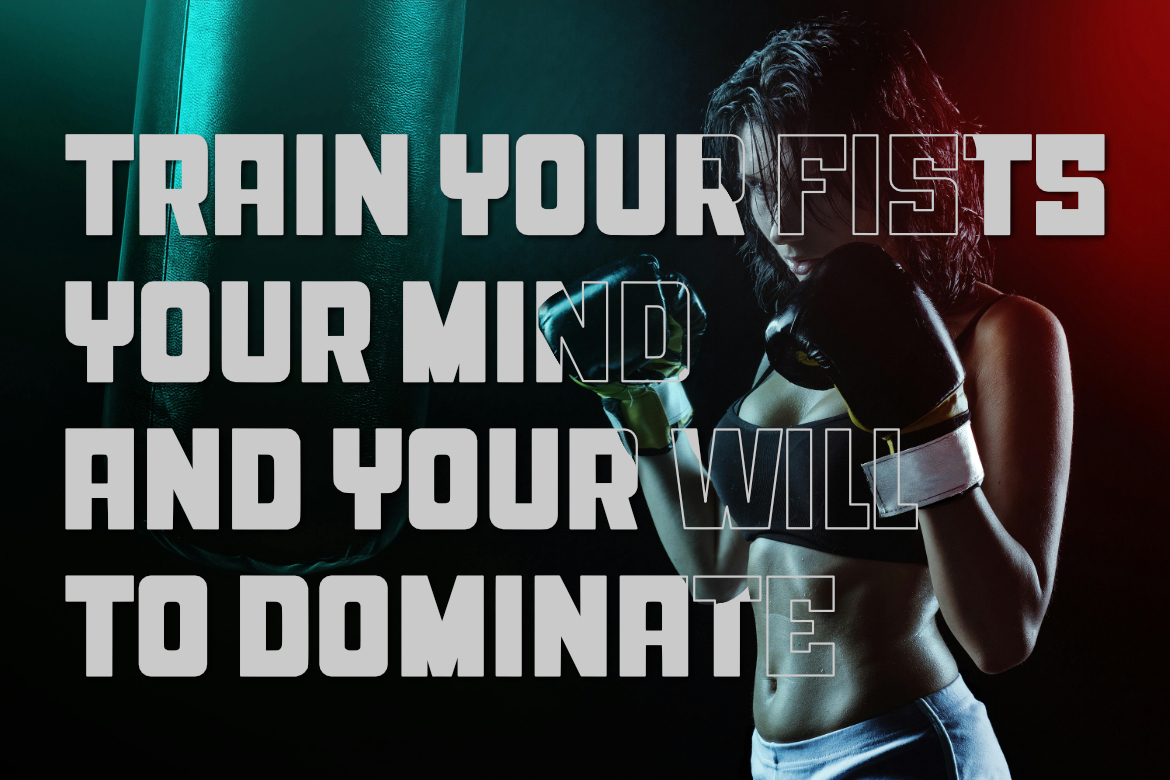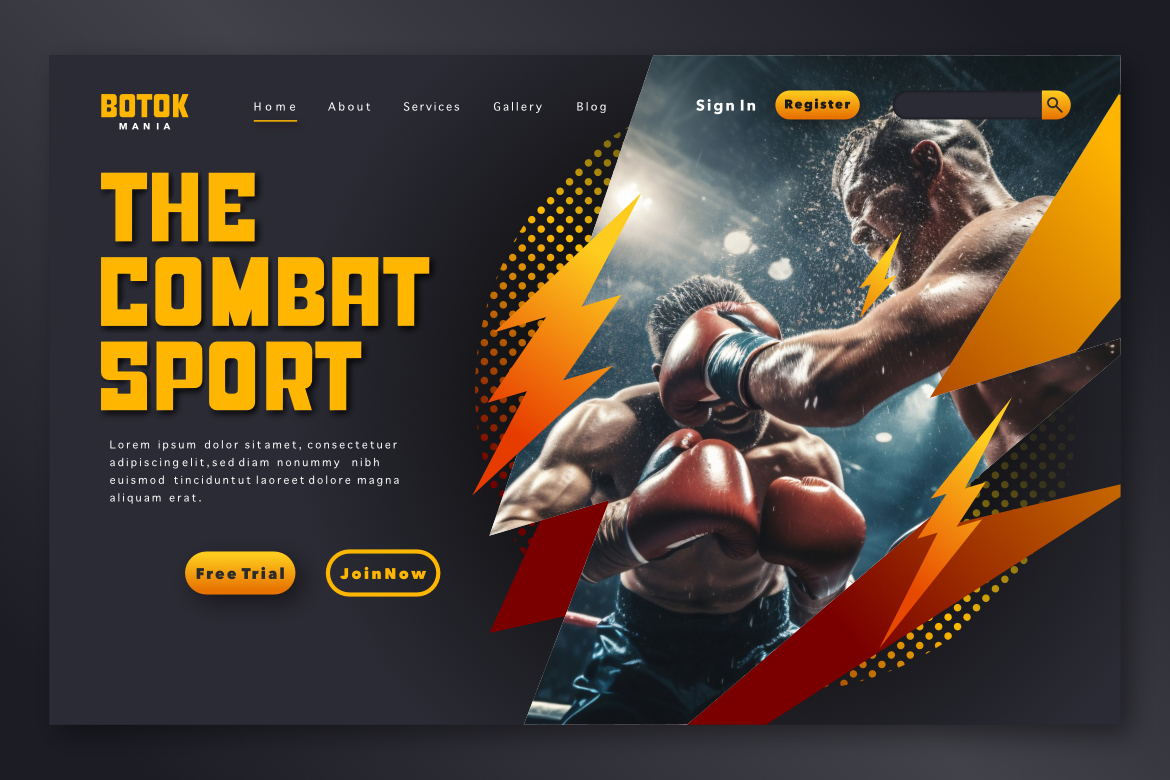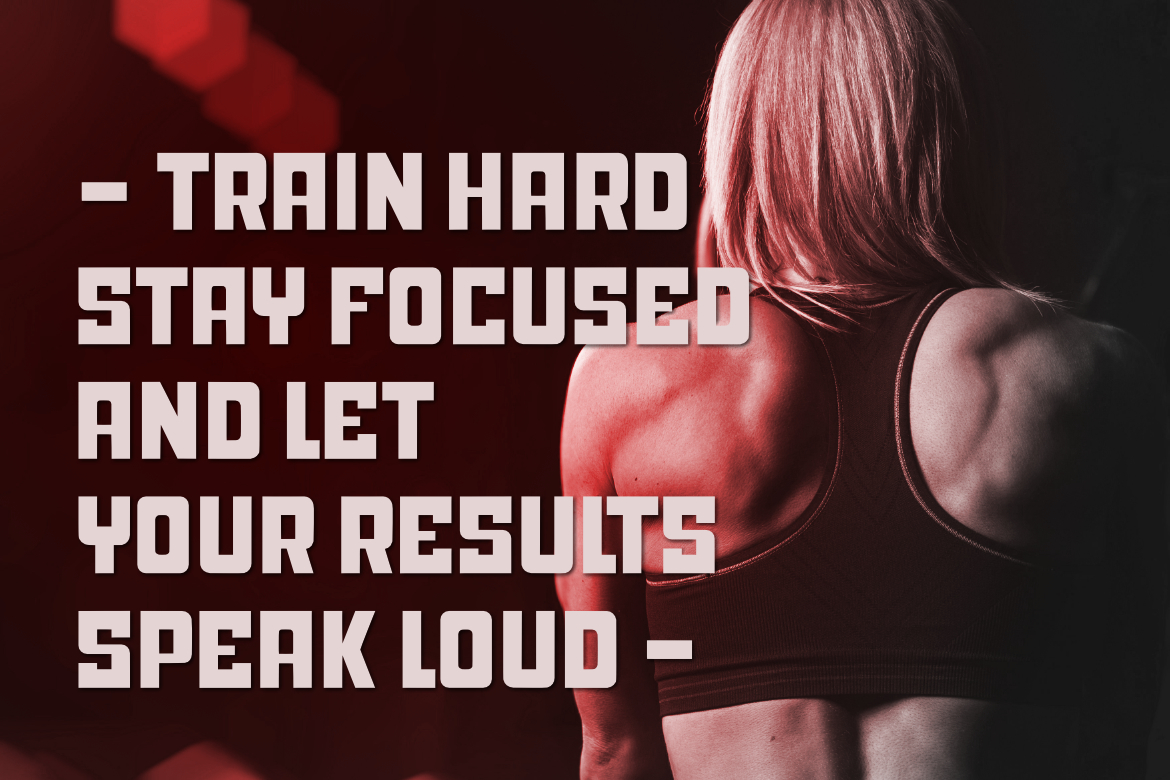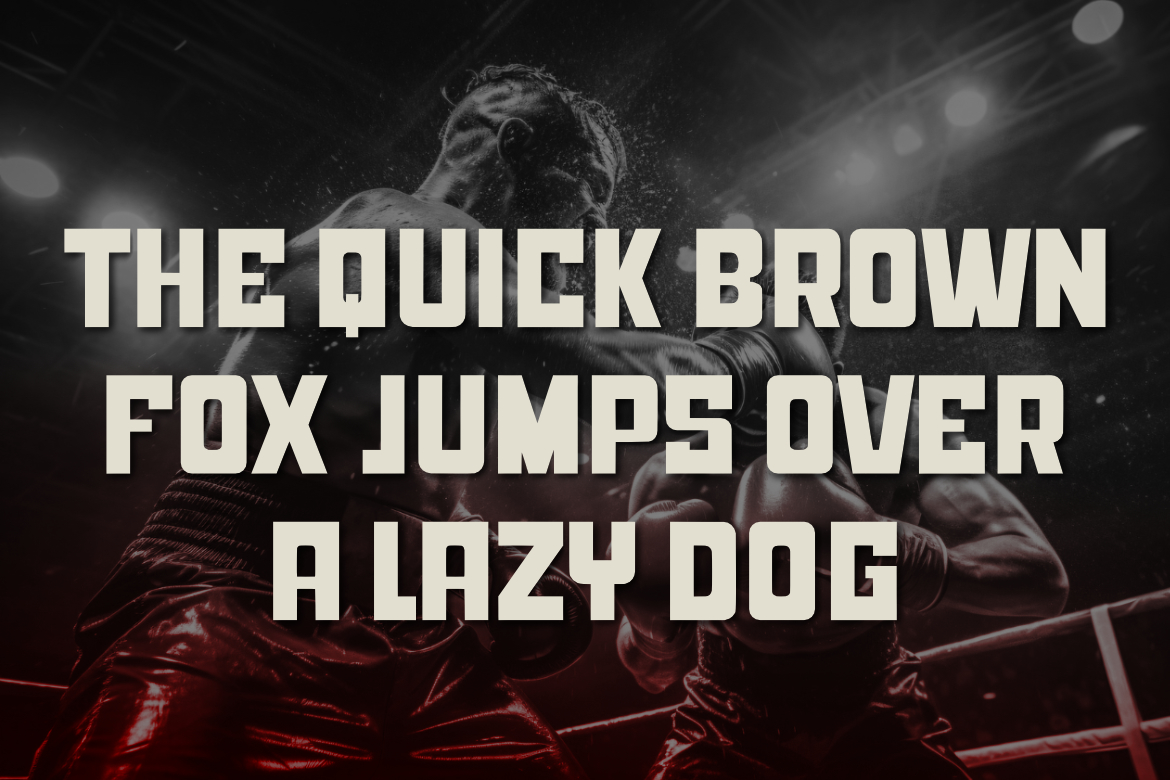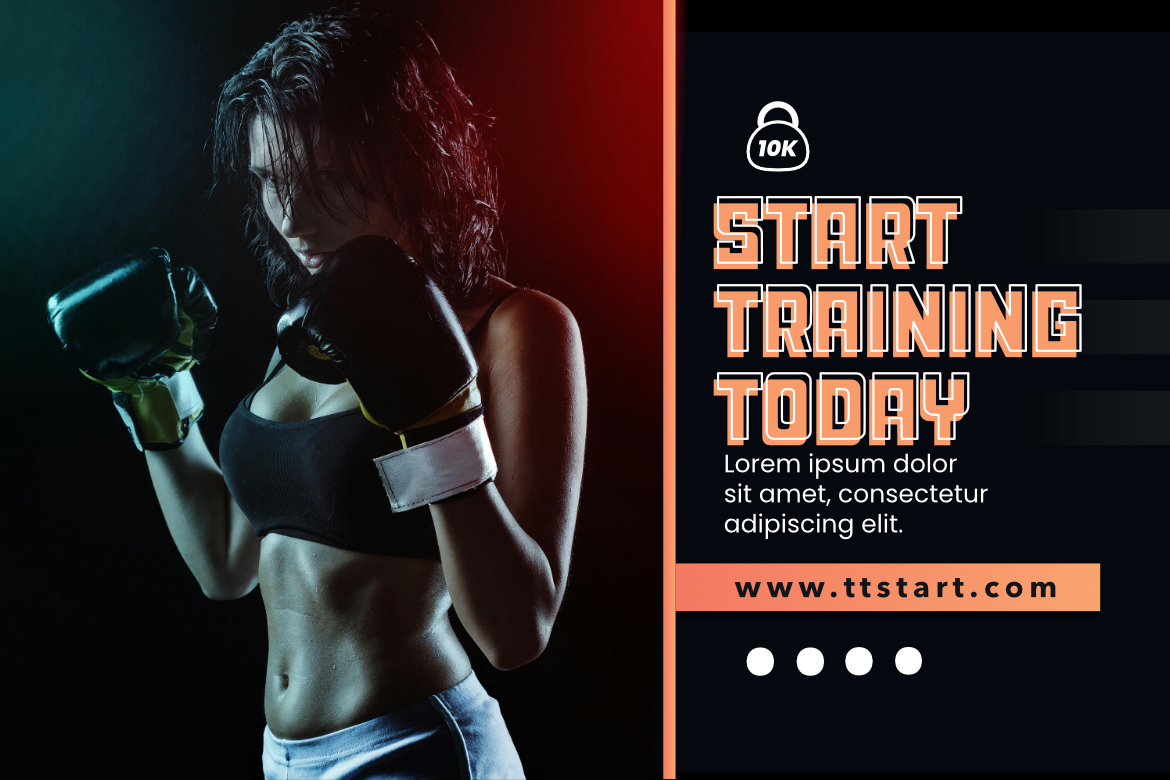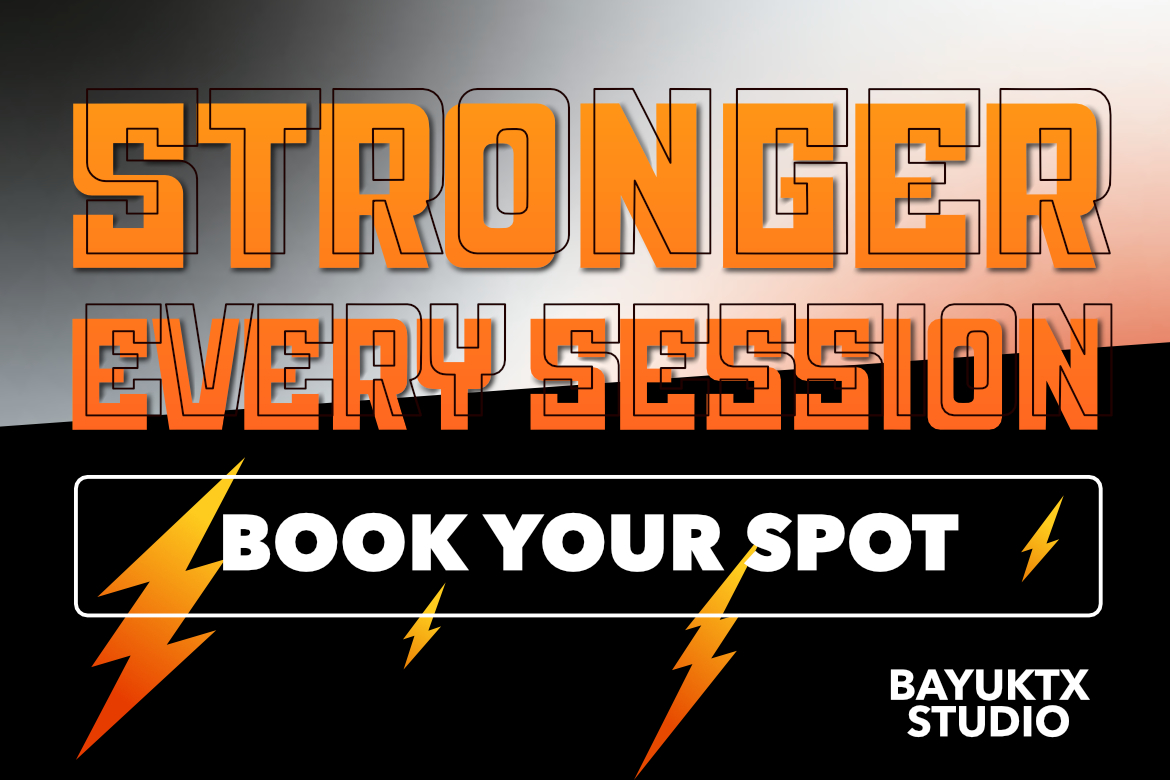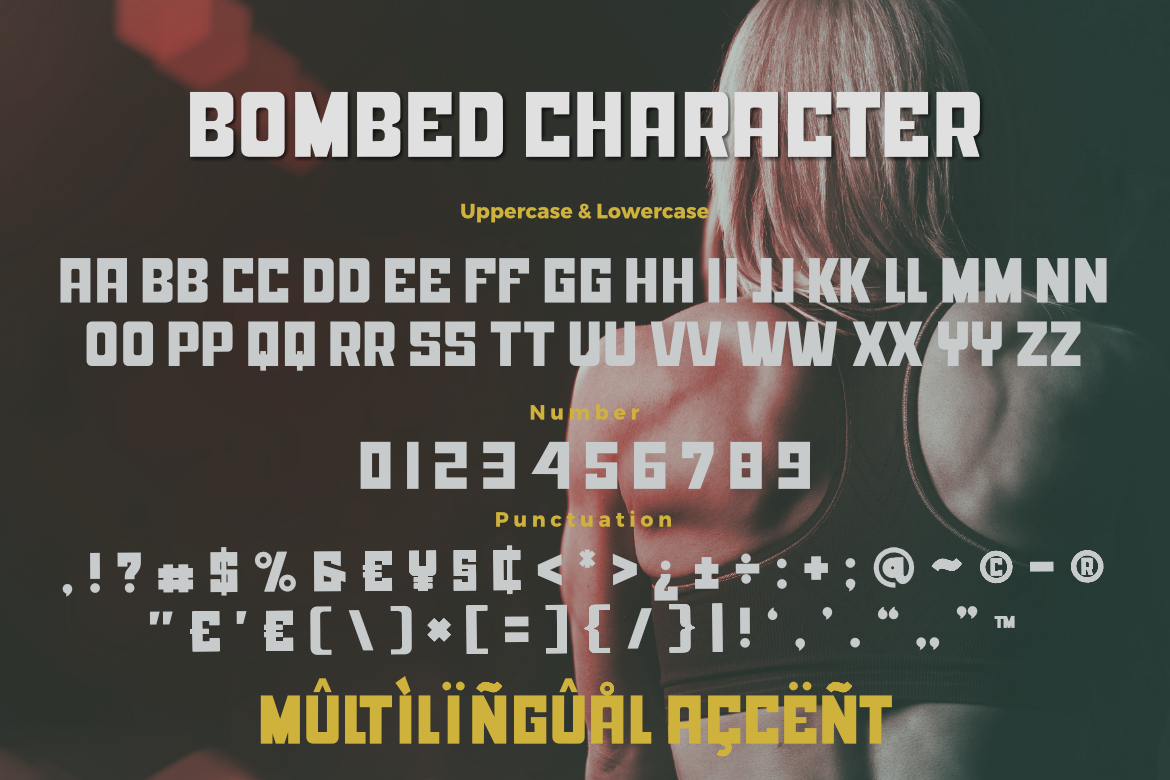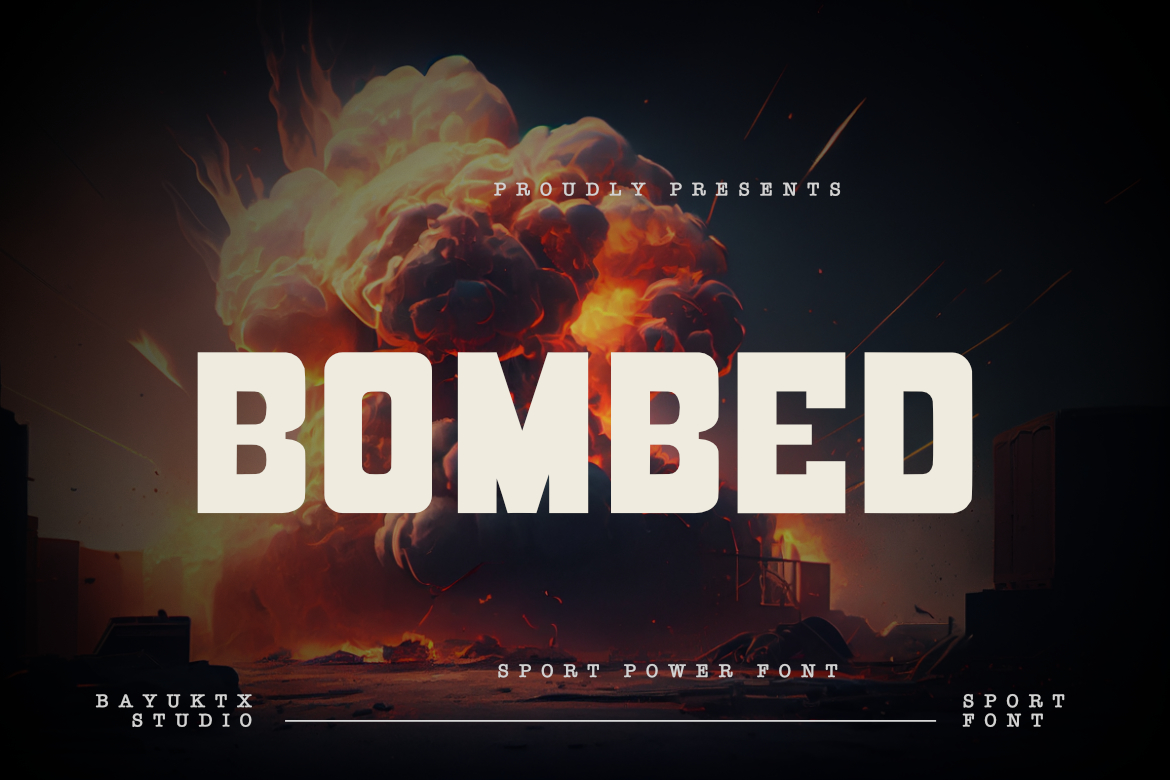
Bombed Sport Power Font - Dynamic Athletic Display
**Bombed Sport Power Font**
Bombed Sport Power Font captures the fierce energy and unstoppable strength of athletic design. Built for impact and performance, this typeface embodies power, precision, and motion — perfect for projects that demand bold visual intensity.
With its sharp edges, dynamic lines, and modern athletic aesthetic, Bombed radiates dominance and confidence. Each letter strikes with force, delivering a powerful statement for sports branding, fitness gear, or energetic typography compositions.
Whether used for logos, merchandise, posters, or esport titles, this font brings the adrenaline of competition to every word — strong, fearless, and unbreakable.
**Key Features :**
* Uppercase & Lowercase
* Numerals & Punctuation
* Multilingual Support
**Suitable For :**
* Sport & Fitness Branding
* Esport Logos & Team Identity
* Gym Posters & Merchandise Design
* Motivational Quotes & Banners
* Action Titles & Dynamic Typography
With _Bombed Sport Power Font,_ every design hits hard — fueled by strength, speed, and confidence.